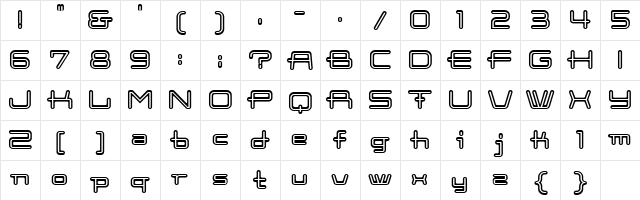
Cootopen Regular
Design Context for Cootopen Typeface
Cootopen takes a measured approach to typography — its balanced proportions and neutral character make it a reliable workhorse for both digital and print work.